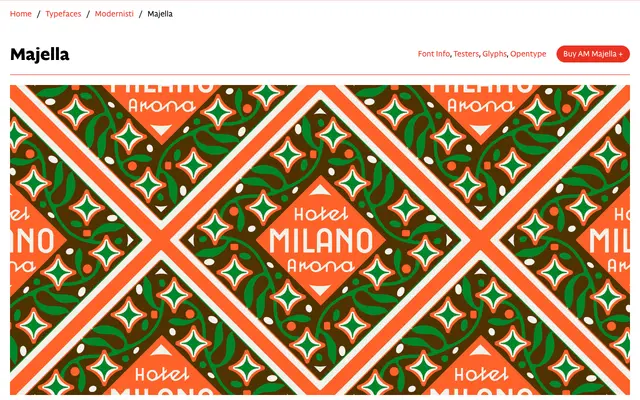
AM Majella
CAST · Valentina Casali · 2024
AM Majella specimen from CAST
A digital revival of a 1930s Italian wood type, fusing joined-up script with strict geometric construction derived from circular proportions.
Originally released by Xilografia di Verona between 1937 and 1939, the source wood type combined handwriting forms with rationalist geometry at almost 45-degree entry and exit strokes. Valentina Casali's revival preserves the original lowercase, adds a new condensed uppercase derived from the original figures, and uses OpenType contextual logic to smooth the letter connections that were imperfect in the historical source. A Circular O alternate is offered via stylistic sets.
A joined-up script with strictly geometric construction based on circular proportions and no thick-thin contrast, derived from an Italian wood type original. The rationalist geometry and connecting strokes place it firmly in the geometric script category.